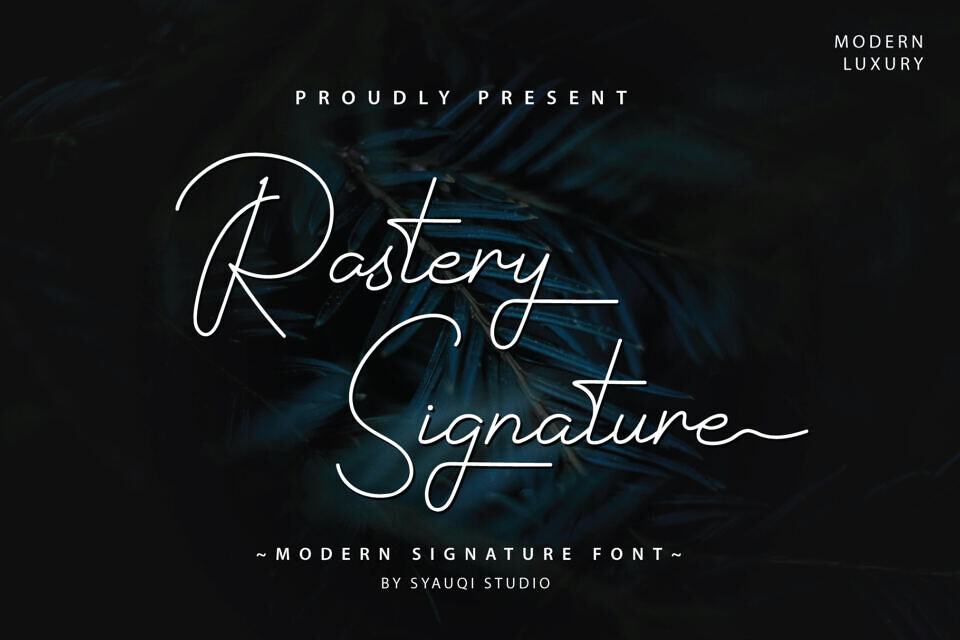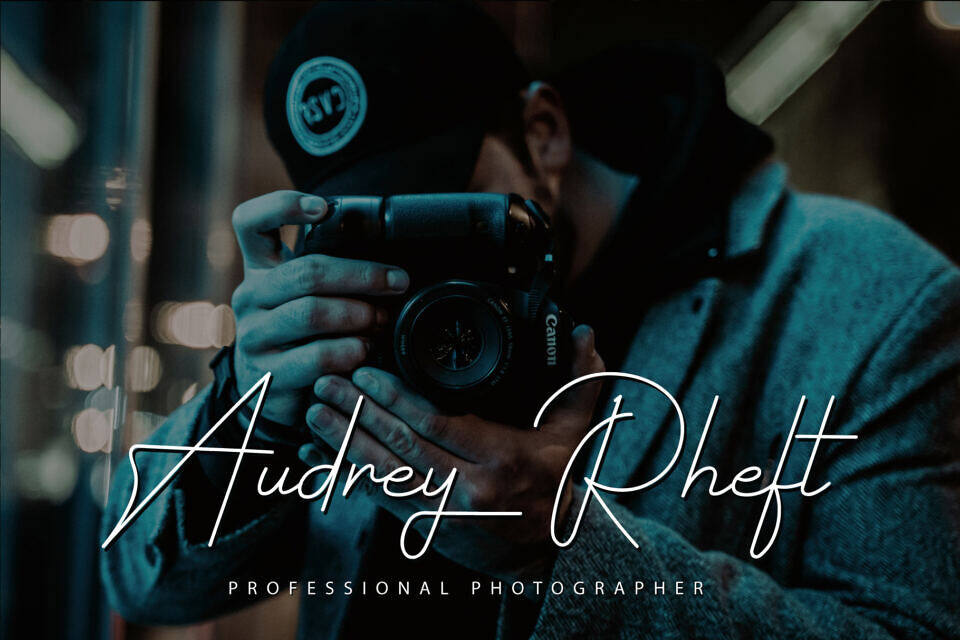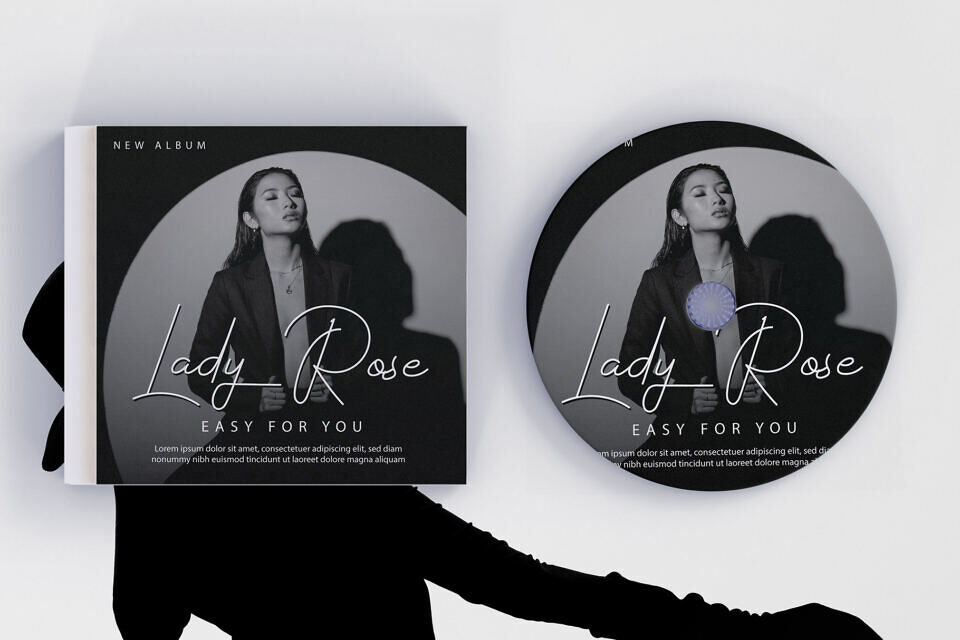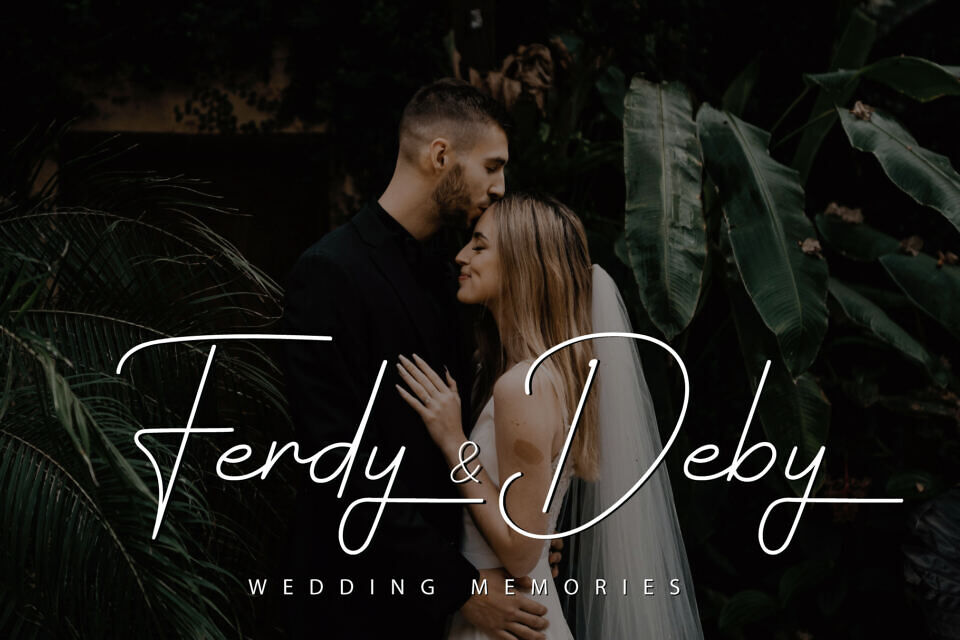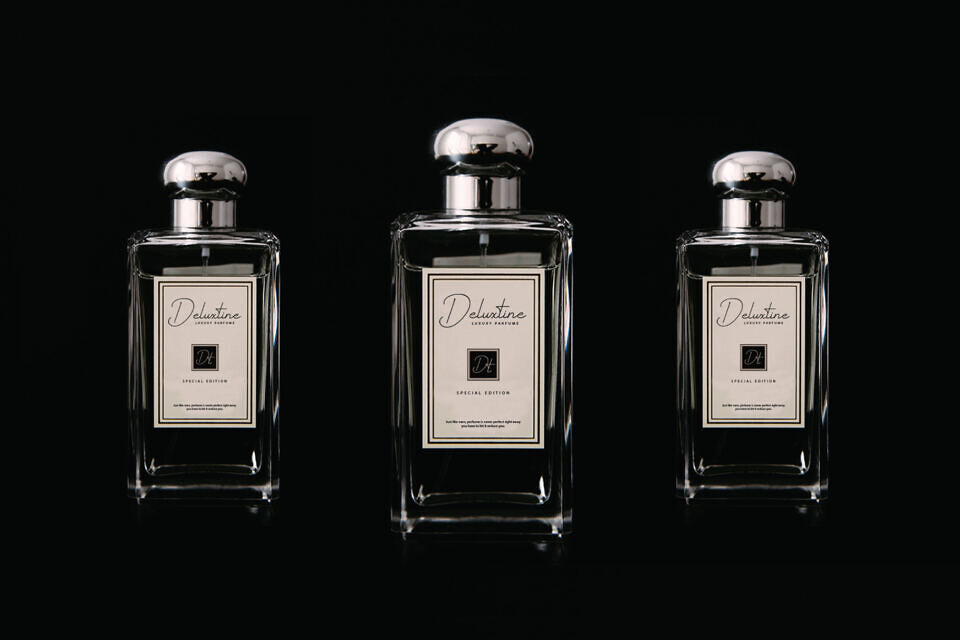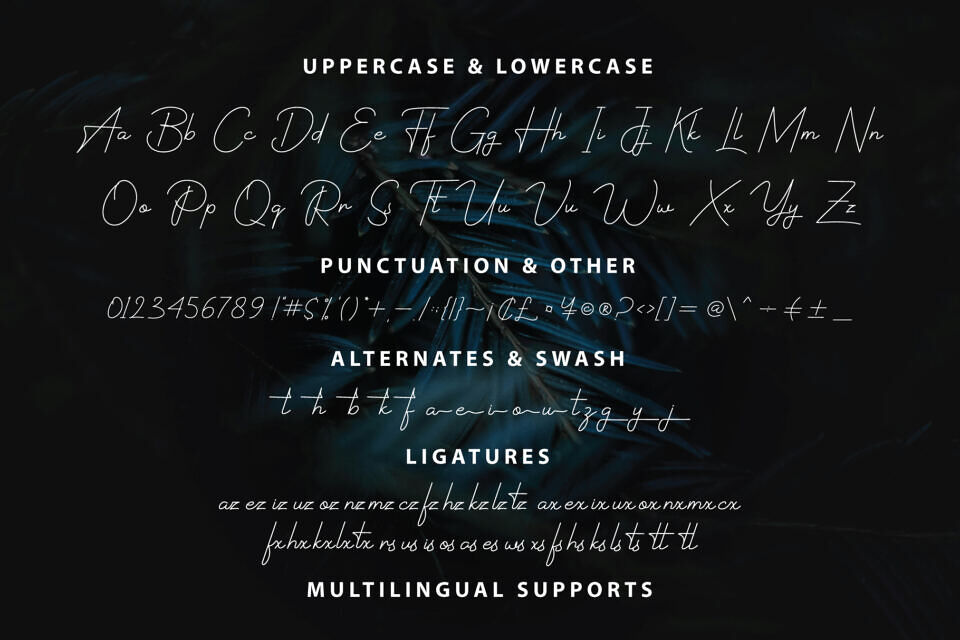
Rastery Signature Font
“Rastery Signature” font is a meticulously crafted piece of typography that embodies understated elegance and refinement. By combining uppercase beginnings and lowercase endings, this font offers a subtle but impactful way to customize your text. Its versatility makes it suitable for a range of design applications, from high-end invitations to sophisticated branding materials and beyond.
Rastery Signature is very good to be used in: photography, watermark, social media posts, advertisements, logos & branding, invitation, product designs, label, stationery, wedding designs, product packaging, special events or anything that need handwriting taste.